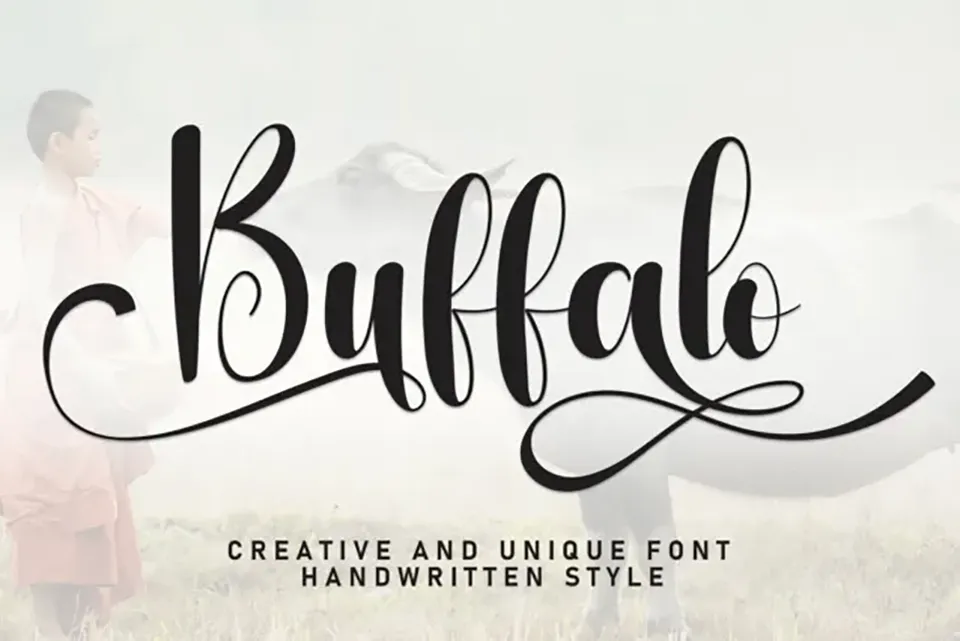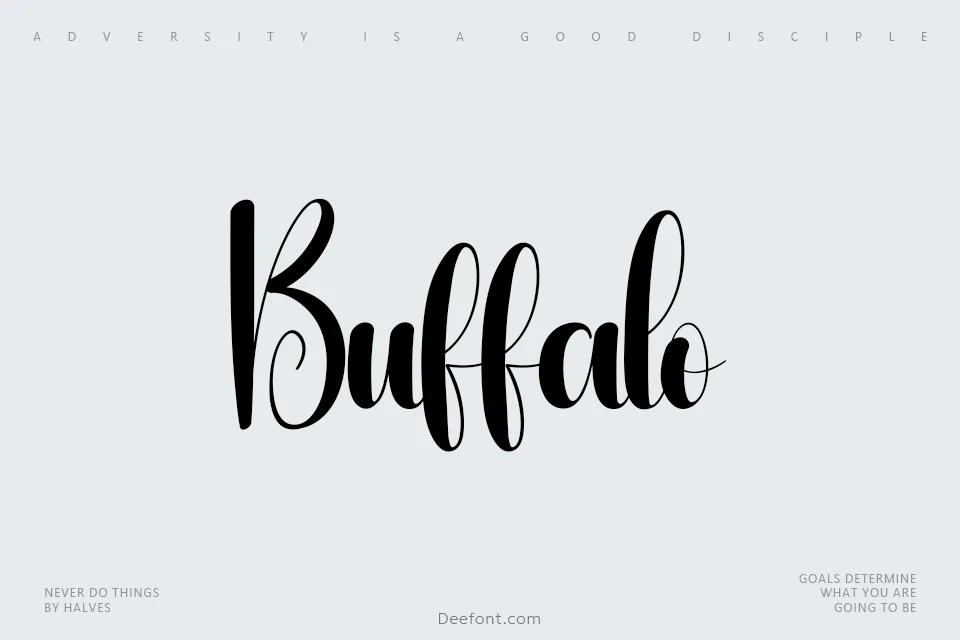
Buffalo Font
Buffalo Font is a creative and unique handwritten typeface that brings a personal, artistic touch to any design project. Its elegant, flowing letterforms and stylish swashes make it perfect for invitations, branding, logos, and social media graphics. The font’s handcrafted appearance adds warmth and character, making your text stand out with a sense of authenticity and charm. Buffalo Font is easy to read while maintaining a playful and sophisticated look, making it suitable for both casual and formal uses. Its versatility and distinctive style ensure your message is delivered with flair and individuality.